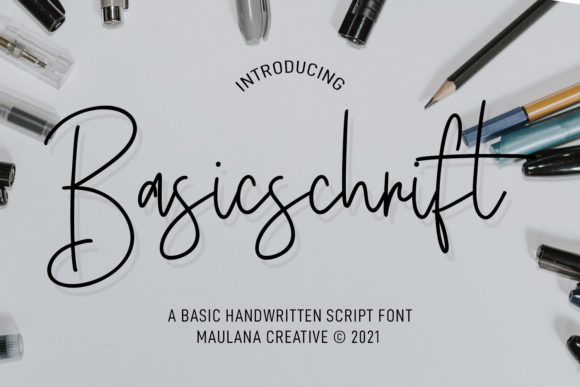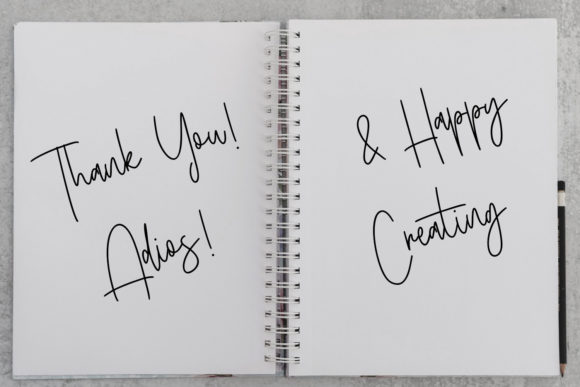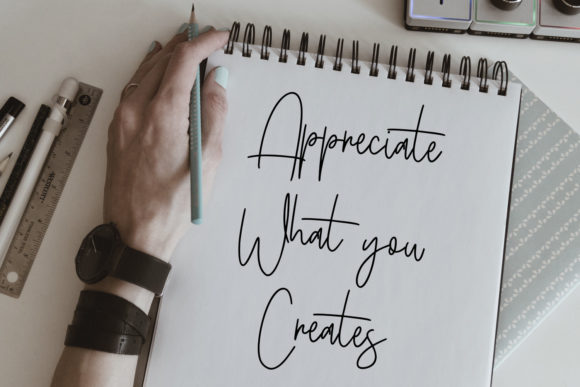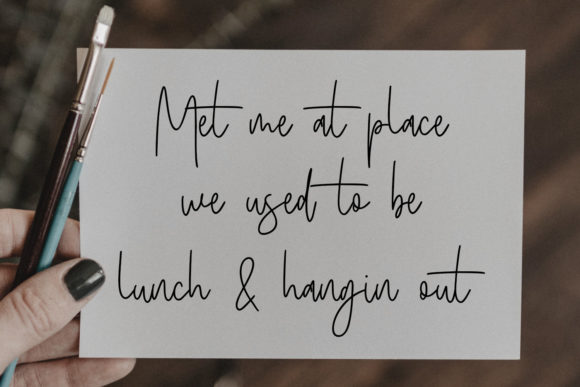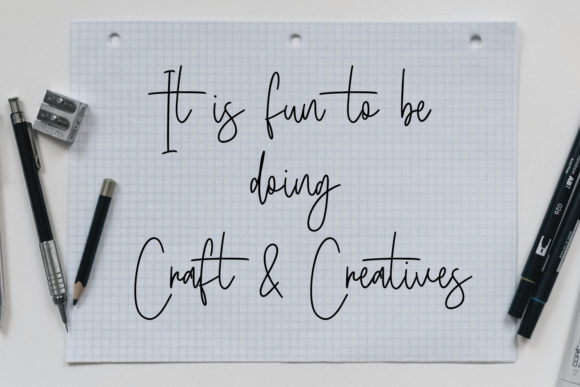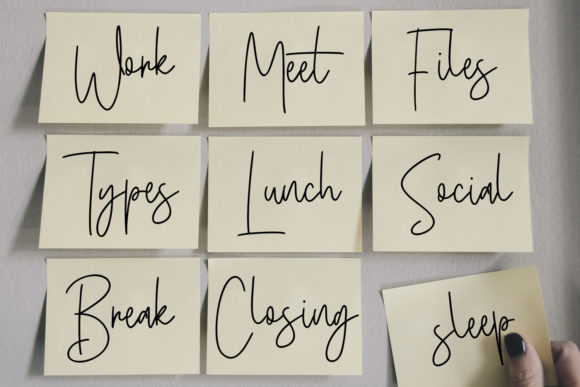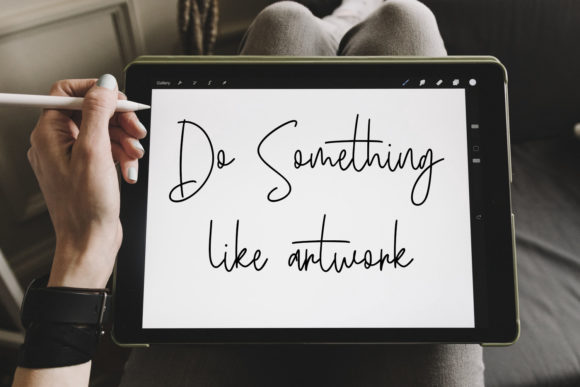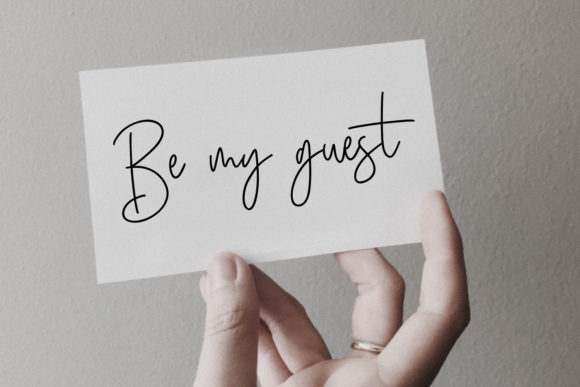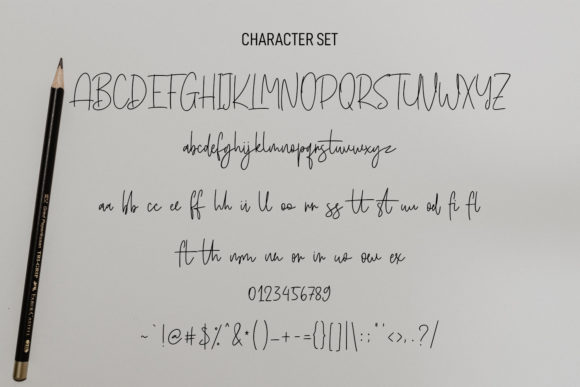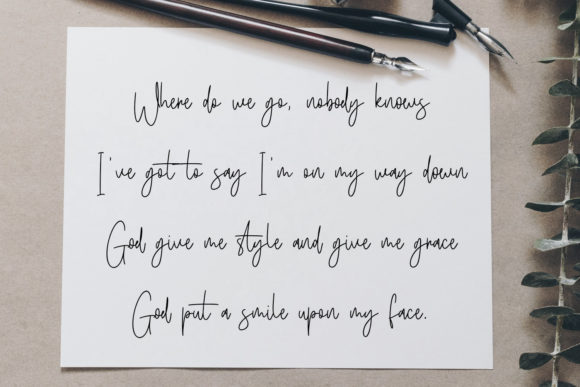
Basicschrift Font
About Basicschrift Font
Basicschrift is a simple and flowing handwritten font. This adaptable font will look great on a variety of design ideas. It will add a fun and friendly touch to each of your projects!